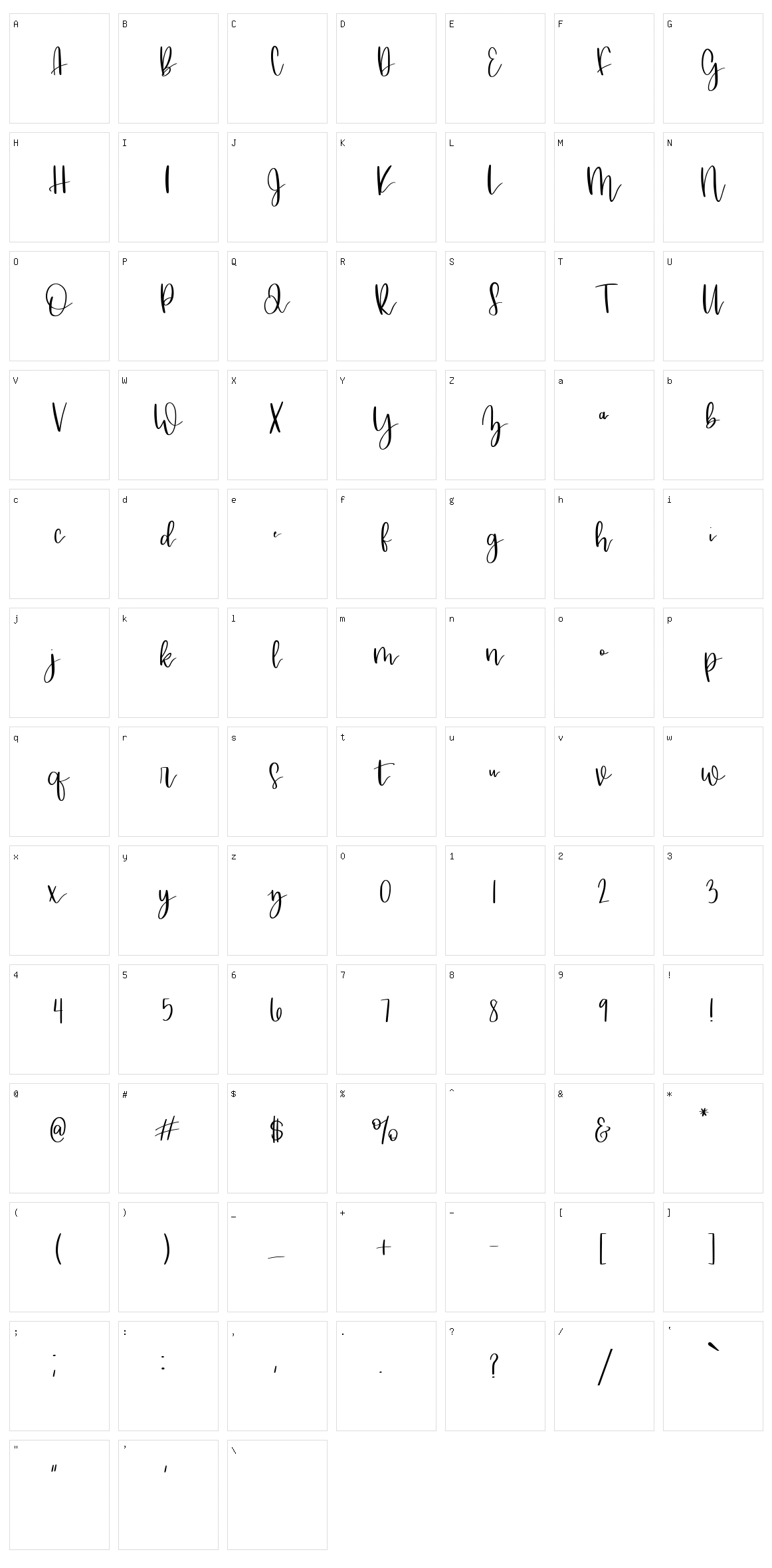
The free font Butterscotch Meringue is carefully designed by Chris Glover, showcasing a thoughtful balance of creativity and usability and falls under the Script font style. When you download the ZIP file, it contains only 18.69 KB of font files, making it lightweight and quick to download. Please review the license details below to understand permitted usage and distribution rights. If license information is not available, we recommend using this font for personal projects only or contacting the author directly for commercial usage permissions.